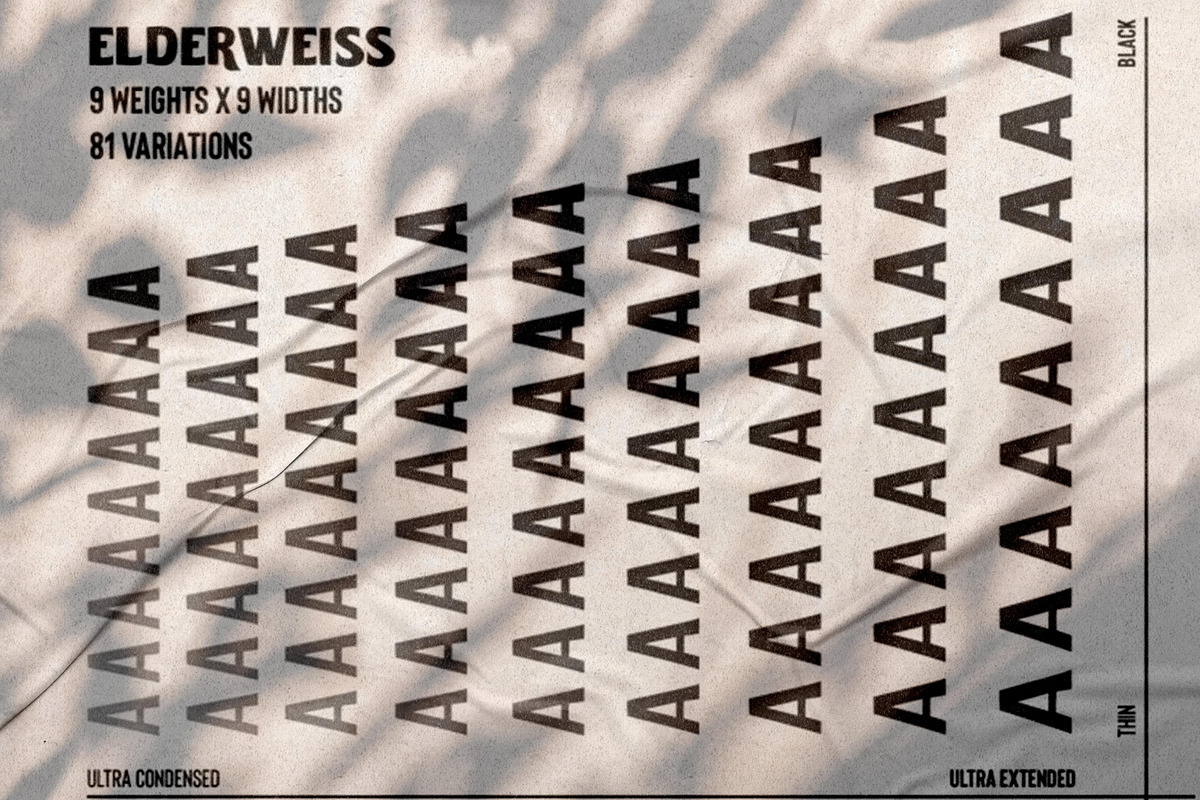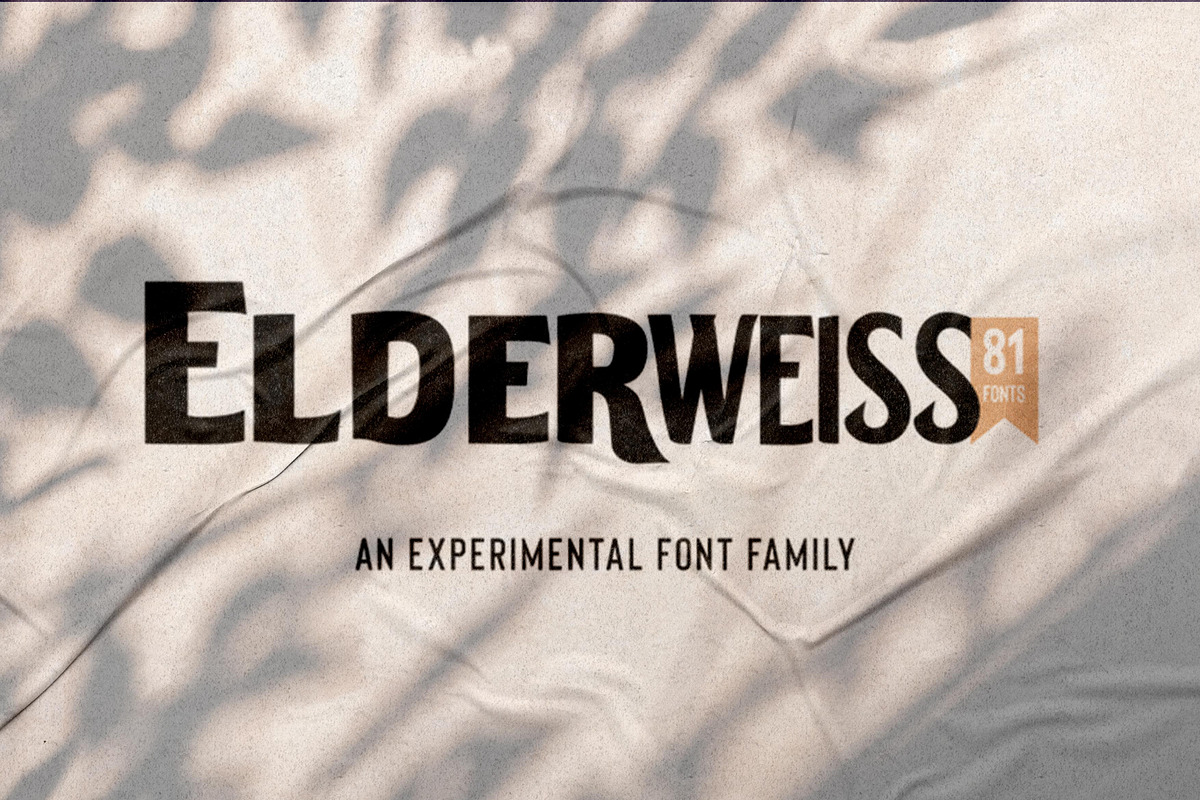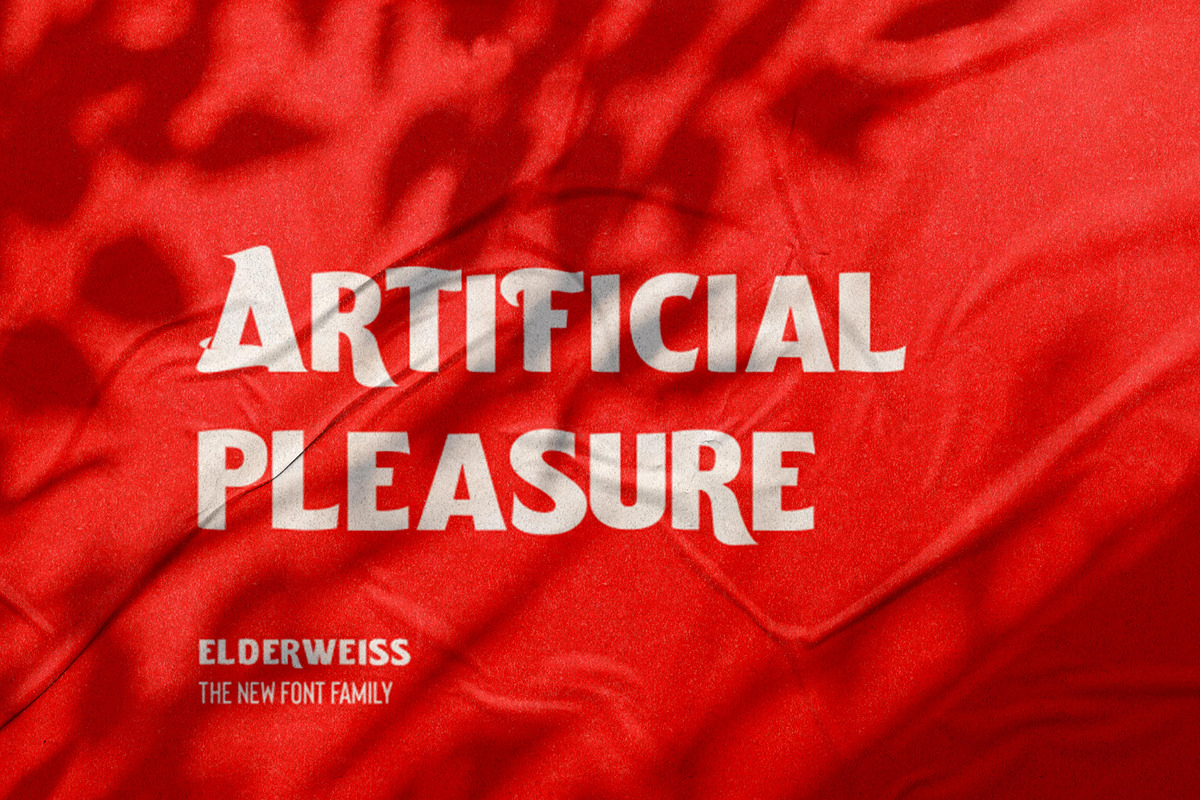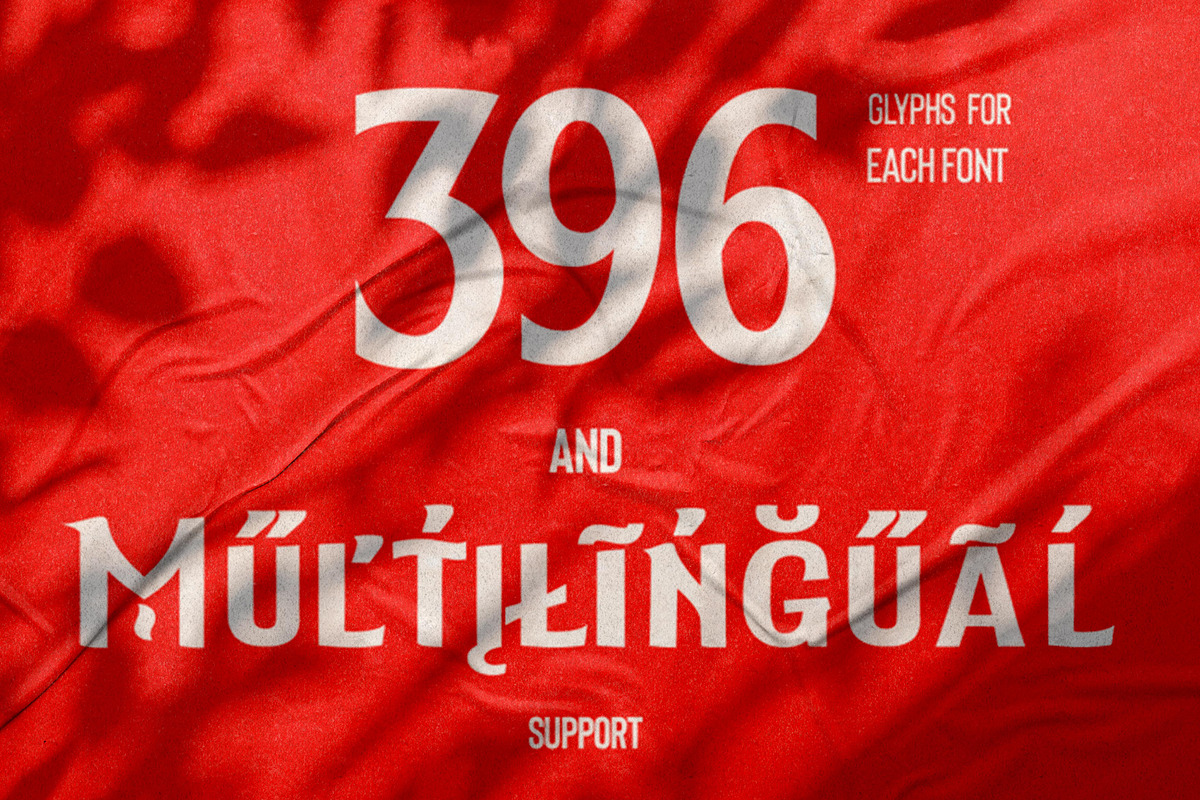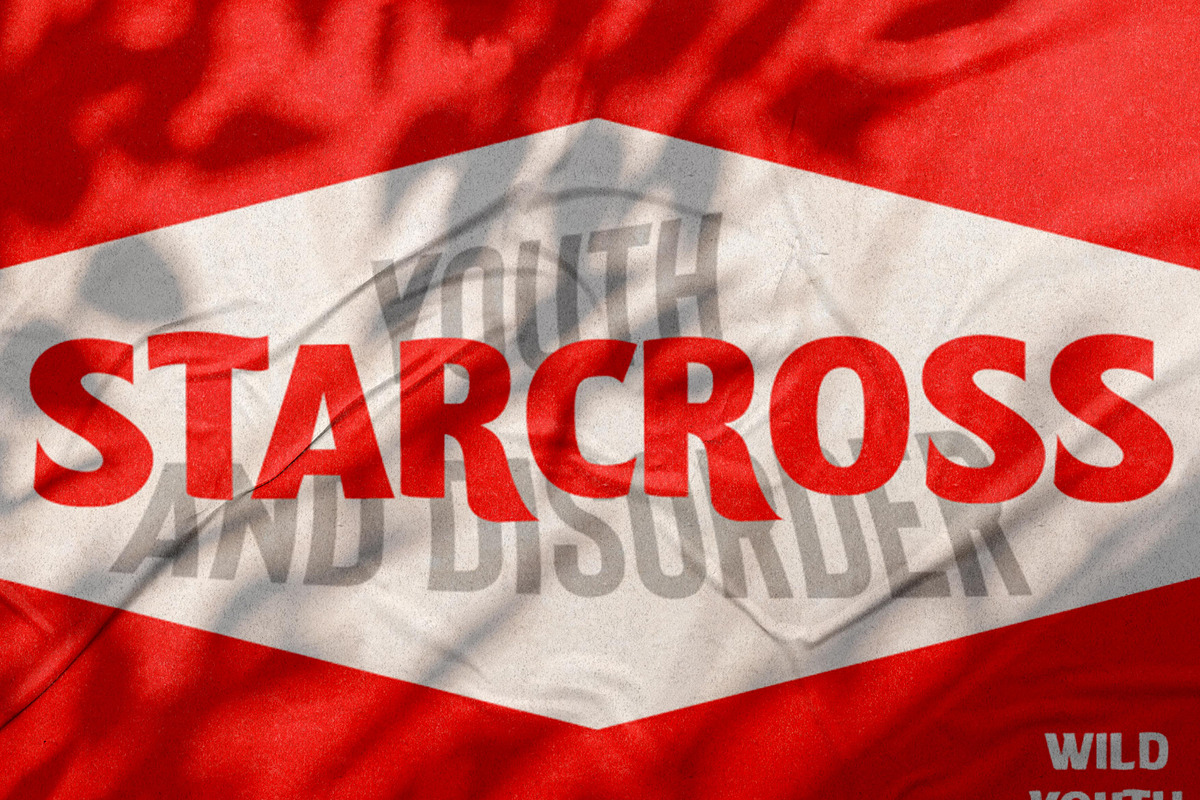
Elderweiss | Experimental Family
Elderweiss is experimental family with nine widths and nine weights. Use Elderweiss to create stunning brand asset and website. Based of the regular style stretched to the breaking point, the resulting typeface is an astounding 81-font. Each font in the family can stand on its own.
FEATURES: Nine Weights / Nine Widths / Number & Punctuation / Extensive Language Support